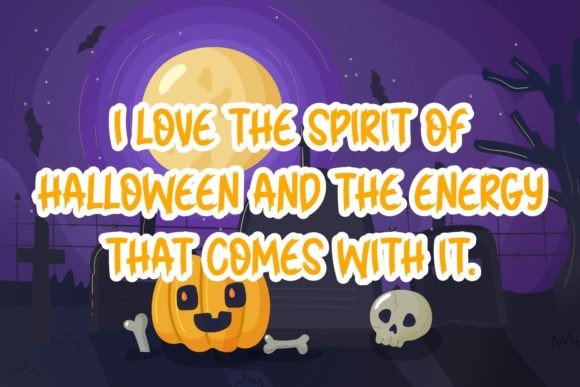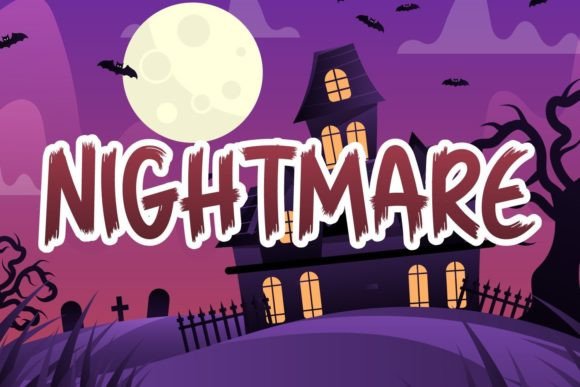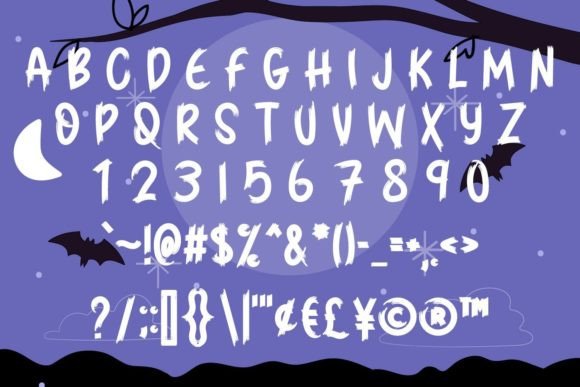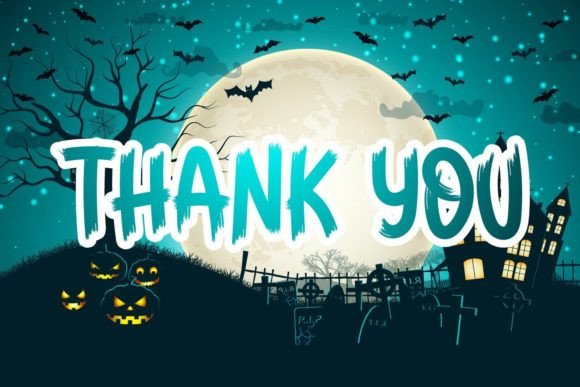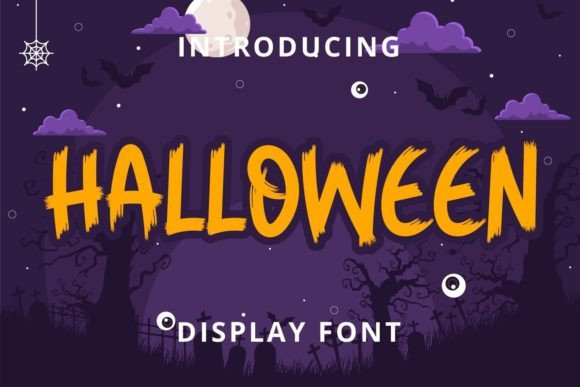
Unleash the Spoirit of Halloween with the Perfect Font: A Comprehensive Guide
Halloween is just around the corner, and it’s time to get creative with your designs! Whether you’re a designer, crafter, or simply someone who loves the spooky season, having the right font can make all the difference in bringing your projects to life. That’s where the Halloween Font comes in – a playful and brush display font that’s perfect for adding a touch of eerie elegance to your designs.
What Makes the Halloween Font So Special?
The Halloween Font is a one-of-a-kind display font that’s specifically designed to capture the spirit of the spookiest time of the year. Its unique brush strokes and playful vibe make it perfect for creating eye-catching designs that are sure to grab attention. Whether you’re creating invitations, posters, or social media graphics, this font is sure to add a powerful effect to your audience.
Key Features of the Halloween Font
- Playful and Brush Display Style: The Halloween Font features a unique brush display style that’s perfect for creating playful and eye-catching designs.
- High-Quality Design: The font is carefully crafted with high-quality design elements, ensuring that it looks great in any size or resolution.
- Versatile: The font can be used for a wide range of design projects, from invitations and posters to social media graphics and more.
How to Use the Halloween Font in Your Designs
Using the Halloween Font in your designs is easy! Here are a few tips to get you started:
- Pair it with Other Fonts: The Halloween Font pairs well with other fonts, so don’t be afraid to experiment with different combinations to create a unique look.
- Use it for Headlines: The Halloween Font is perfect for headlines and titles, where its bold and playful style can really shine.
- Add it to Your Social Media Graphics: Use the Halloween Font to add a touch of personality to your social media graphics, such as Halloween-themed Facebook posts or Instagram stories.
- Create Spooky Invitations: The Halloween Font is perfect for creating spooky invitations for Halloween parties or events.
Tips and Tricks for Getting the Most Out of the Halloween Font
Here are a few tips and tricks for getting the most out of the Halloween Font:
- Experiment with Different Colors: The Halloween Font looks great in a wide range of colors, so don’t be afraid to experiment with different combinations to find the perfect look for your design.
- Use it in Combination with Images: The Halloween Font pairs well with images, so consider using it in combination with spooky photos or illustrations to create a really eye-catching design.
- Make it 3D: Consider using the Halloween Font in 3D designs, such as posters or flyers, to really make it stand out.
Whether you’re a seasoned designer or just starting out, the Halloween Font is sure to be a valuable addition to your font collection. So go ahead, get creative, and unleash the spirit of Halloween with the perfect font!